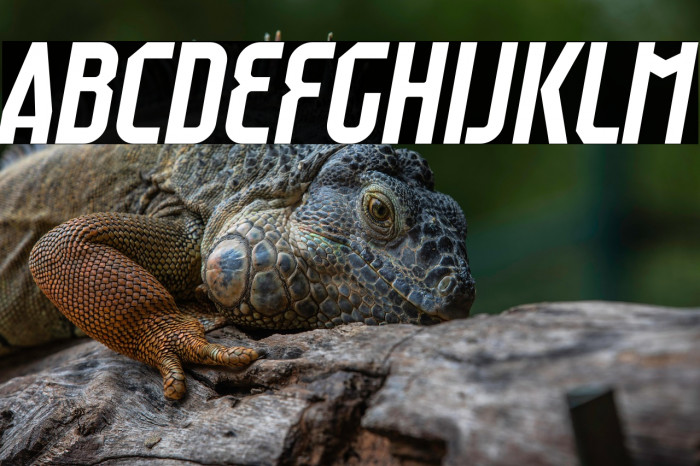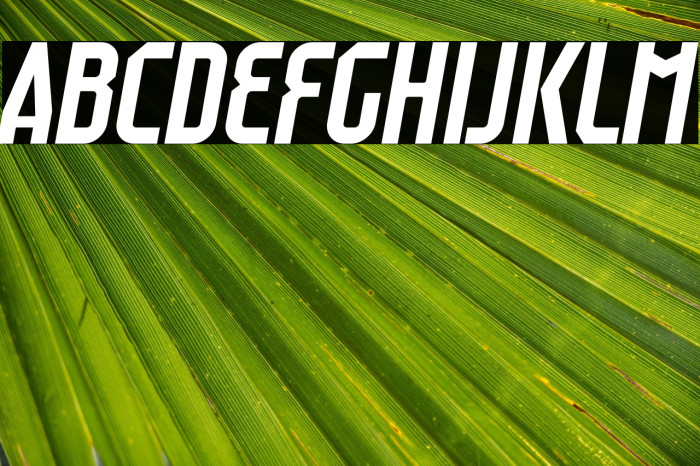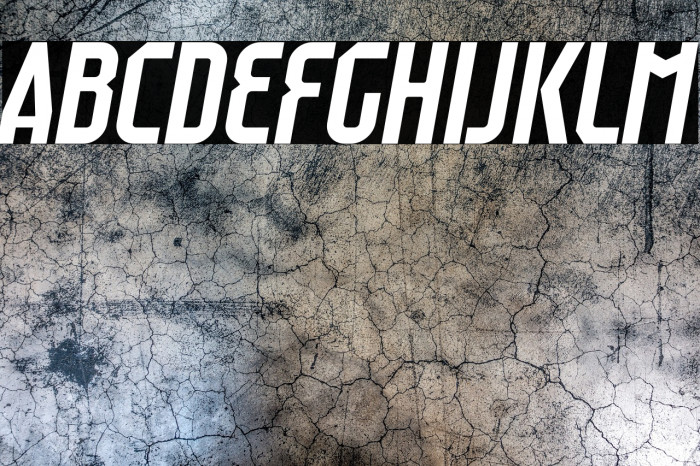
Raumdeuter Italic Font
Raumdeuter Italic Description
This font features a bold, italicized style with a modern and dynamic appearance. The characters are sharply angled, giving a sense of movement and energy. The uppercase letters are prominent and assertive, while the lowercase letters maintain a consistent slant that complements the overall design. The numerals are equally bold and maintain the same angular style, ensuring uniformity across all characters. The font's unique style makes it suitable for projects that require a strong visual impact.
| Proposed Projects | Ideal for sports branding, dynamic posters, modern advertising, and impactful headlines. |